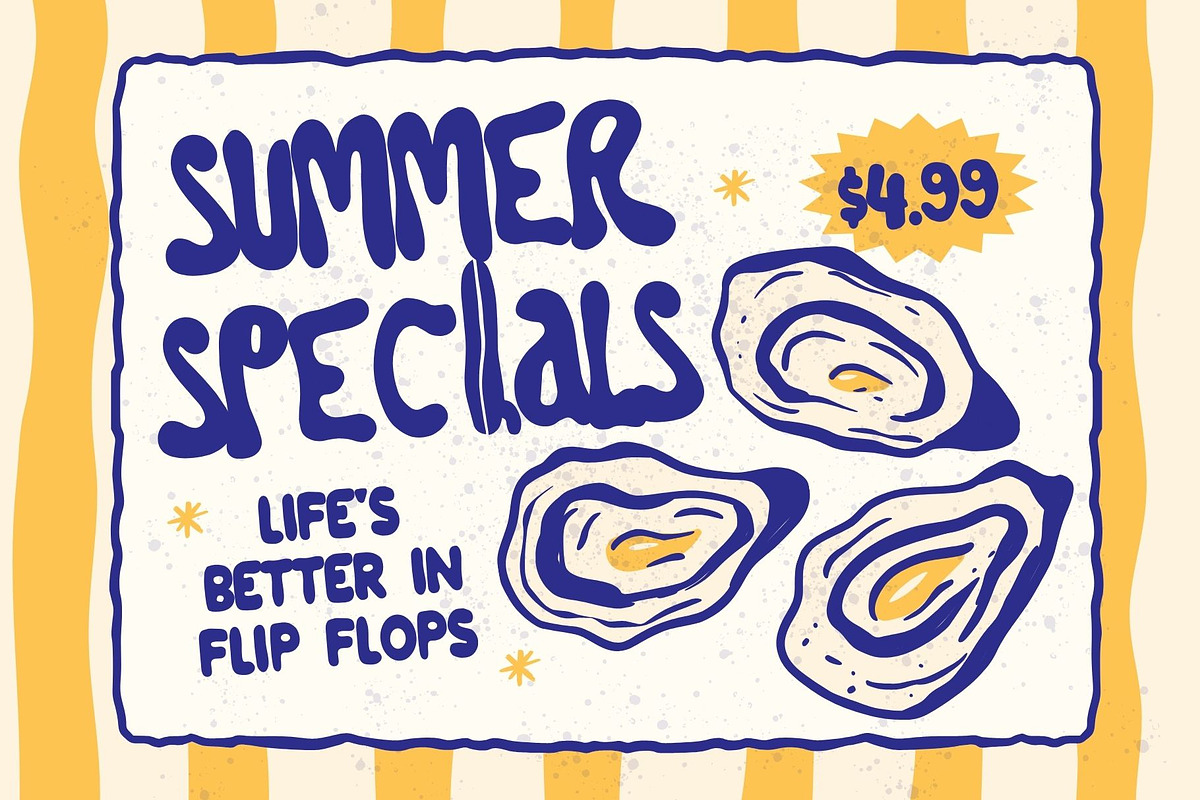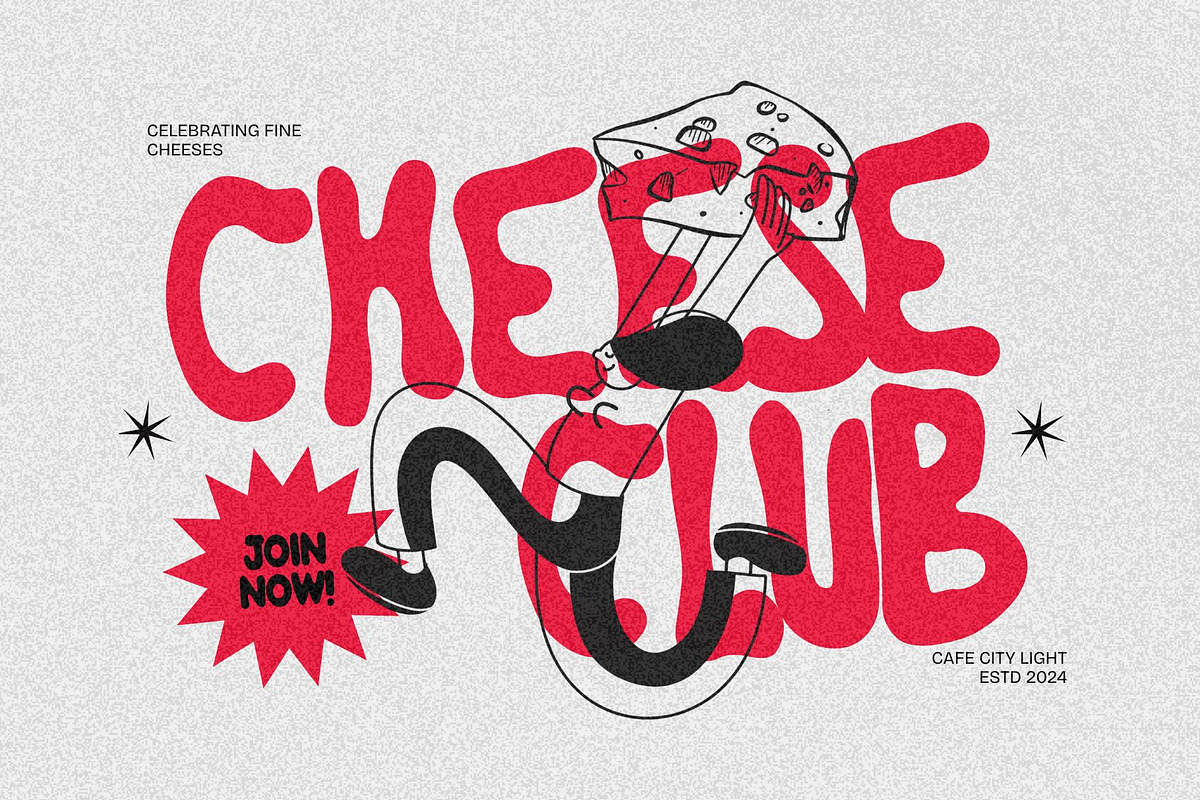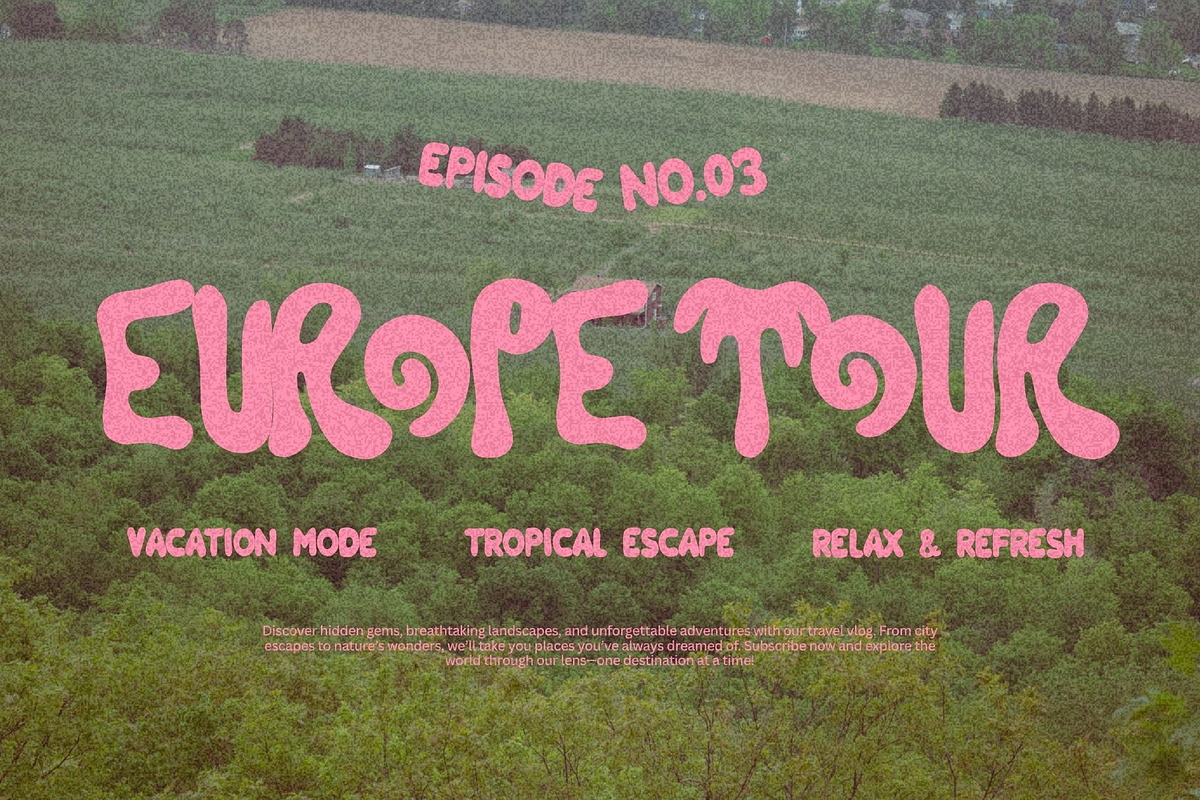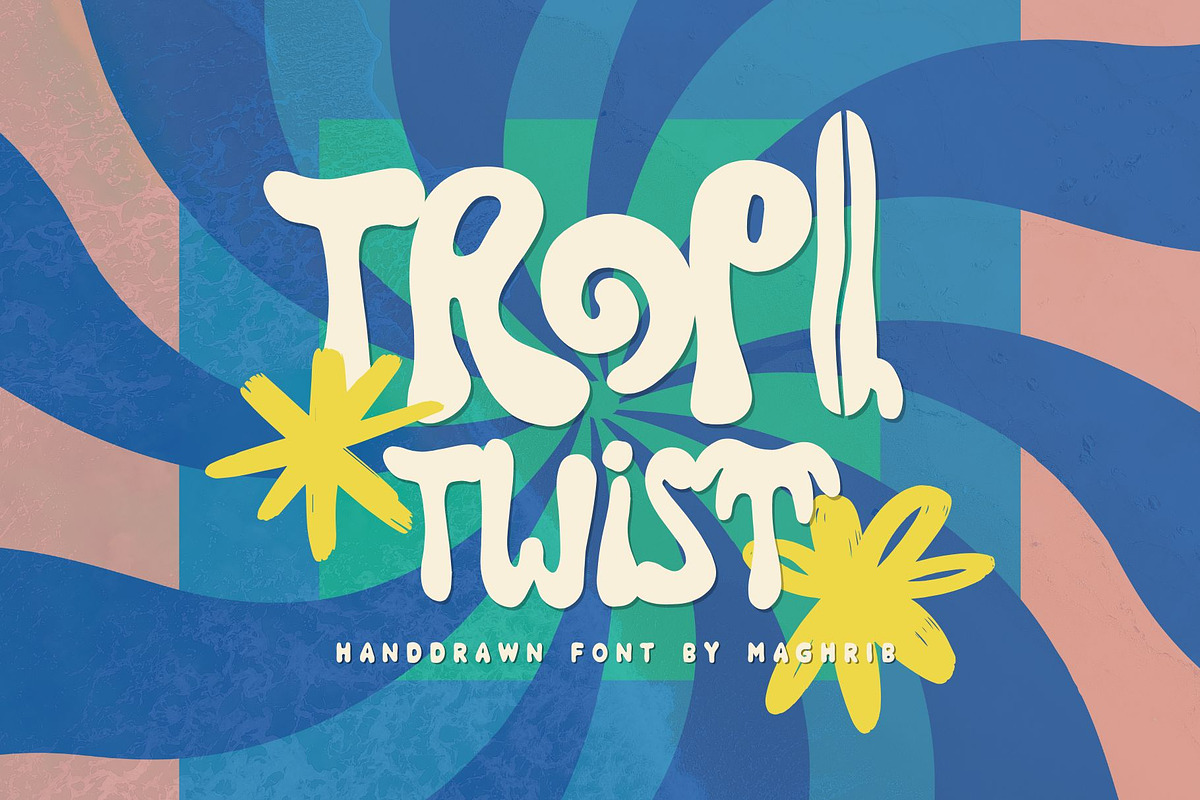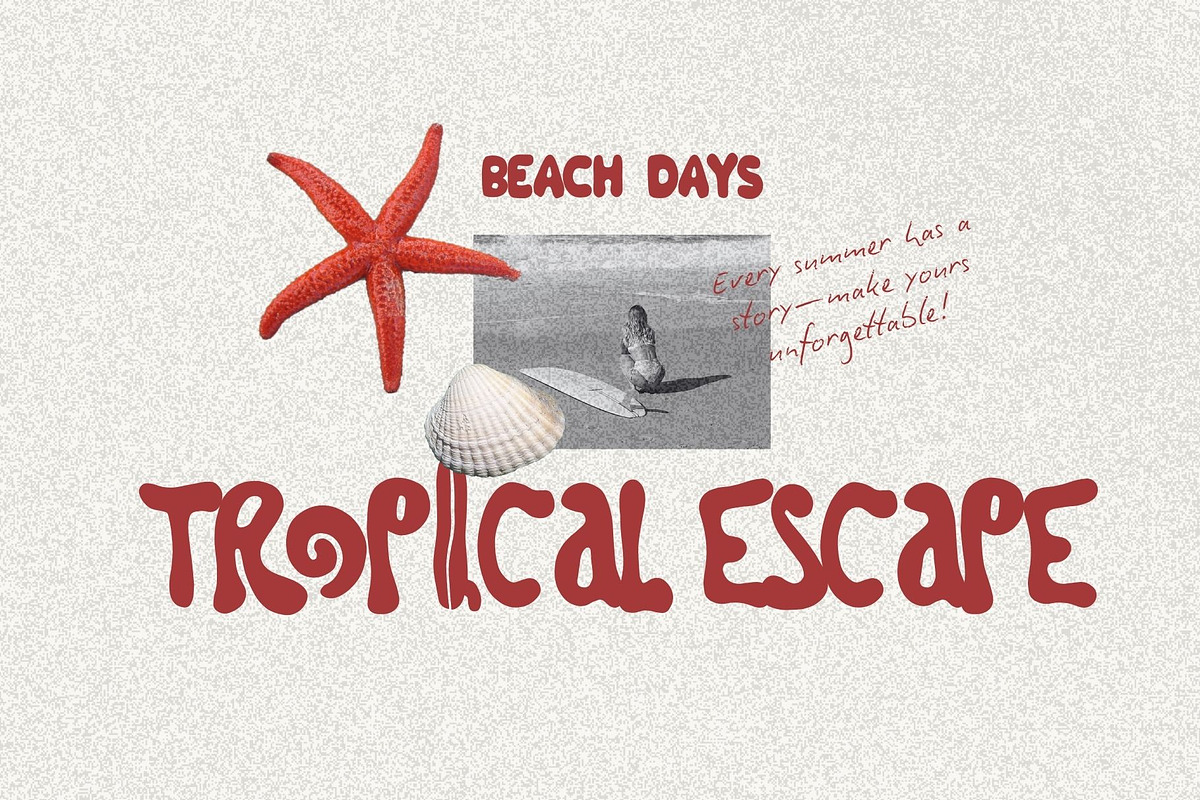
Tropi Twist
Tropi Twist – Playful Handdrawn Font
Bring a burst of tropical fun and vibrant energy to your designs with Tropi Twist, a playful hand-drawn font inspired by summer vibes, beach life, and retro grooves. Its quirky, free-flowing letterforms add a bold and cheerful personality that instantly grabs attention.
Perfect for branding, logos, posters, packaging, and social media content, Tropi Twist brings a unique charm to any creative project. Each character is designed with a lively, organic feel that makes your work stand out with a fresh and groovy touch.
Whether you’re creating summer party flyers, tropical-themed packaging, or retro-inspired designs, Tropi Twist is your go-to font for adding warmth, playfulness, and unforgettable style